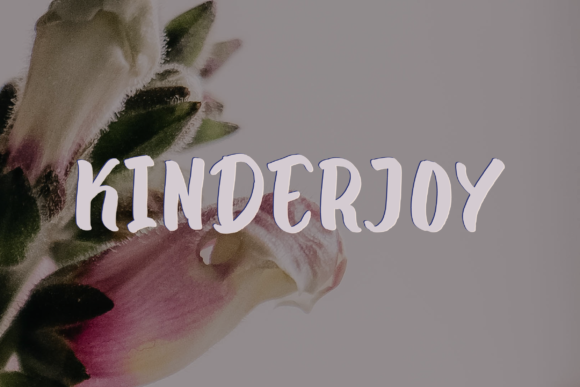
Kinderjoy Font
Prepare yourself for an enchanting journey into the world of Kinderjoy Font, a captivating display font born from the imagination of Huntype. Experience the boundless creativity as this playful and adventurous font takes you on a magical ride, adding a touch of whimsy and wonder to your design endeavors.
With its expressive and lively characters, Kinderjoy Font is the perfect choice for projects that demand a captivating and cheerful vibe. Unleash your imagination and let Kinderjoy Font bring life to your school-themed projects, children's books, posters, invitations, and any design that calls for a fun and engaging touch.
Kinderjoy Font is not merely a collection of letters and symbols; it's an invitation to embark on an adventure, to explore the boundless realms of creativity, and to leave a lasting impression on your audience. Its playful curves and cheerful strokes will infuse your designs with an irresistible charm that resonates with viewers of all ages.
While Kinderjoy Font exudes a playful spirit, it also possesses a remarkable versatility that makes it suitable for a wide range of projects. Its bold and distinctive characters can command attention in headlines, logos, and posters, while its playful nature adds a touch of whimsy to invitations, greeting cards, and social media graphics.